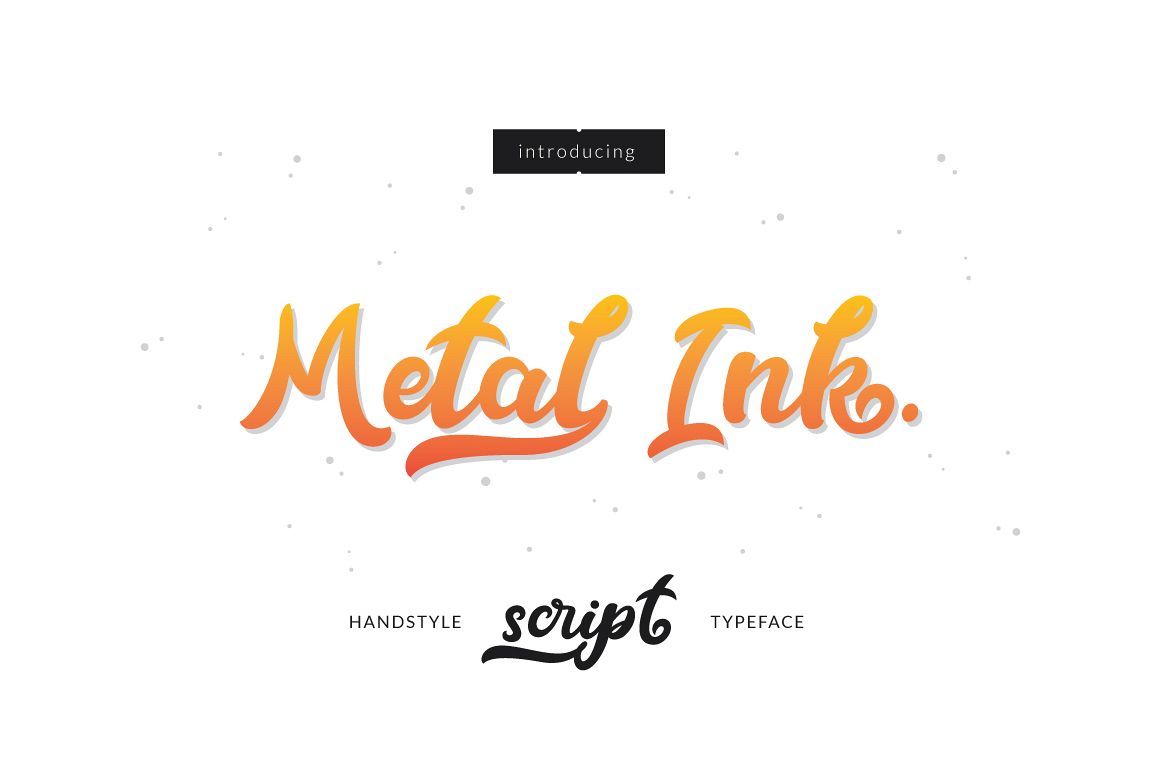
Metal Ink Typeface
Metal Ink
Hi ...!! latest products at the end of the year by me. This is Metal Ink.
Typeface, simple and easy to create this awesome lettering, just type
your words and then you will immediately see the great results.
The Metal Ink. Script features:
• Uppercase & lowercase
• Stylistic alternates & swashes
• International characters (Multilingual)
• Punctuation & symbols